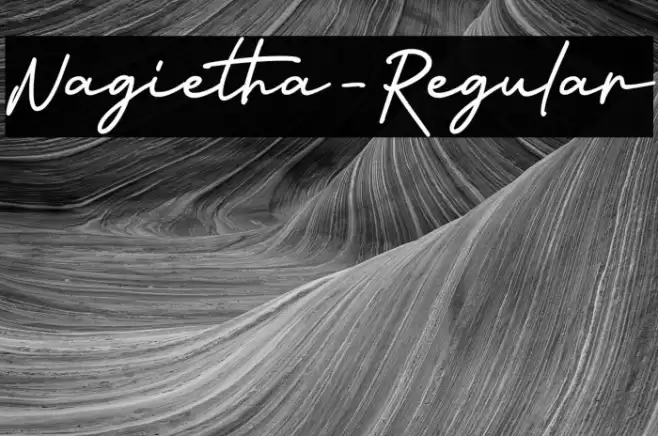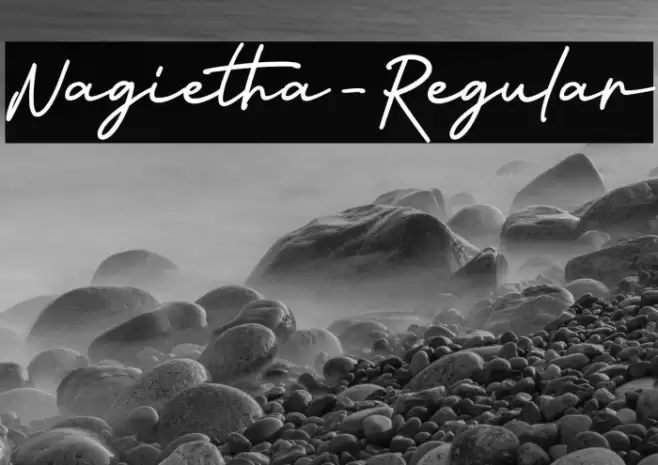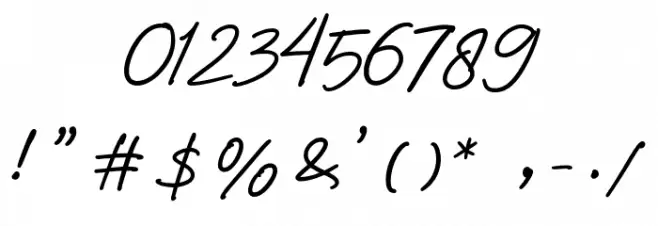
Nagietha-Regular Font
Nagietha-Regular Description
This font exhibits a flowing, cursive style that mimics natural handwriting, characterized by its elegant and fluid strokes. The uppercase letters are bold and slightly slanted, giving a sense of movement and grace. The lowercase letters maintain a consistent flow, with smooth connections between characters, enhancing its handwritten appearance. Numbers and special characters are crafted with the same attention to detail, ensuring a cohesive look across all elements. The overall design is both sophisticated and approachable, making it suitable for a variety of creative applications.
A flowing, cursive font with elegant, handwritten strokes from Regular fonts.
- Proposed Projects: Ideal for wedding invitations, greeting cards, personal branding, and artistic projects that require a personal touch.
- Use Case: Logos, Invitations, Personal Branding